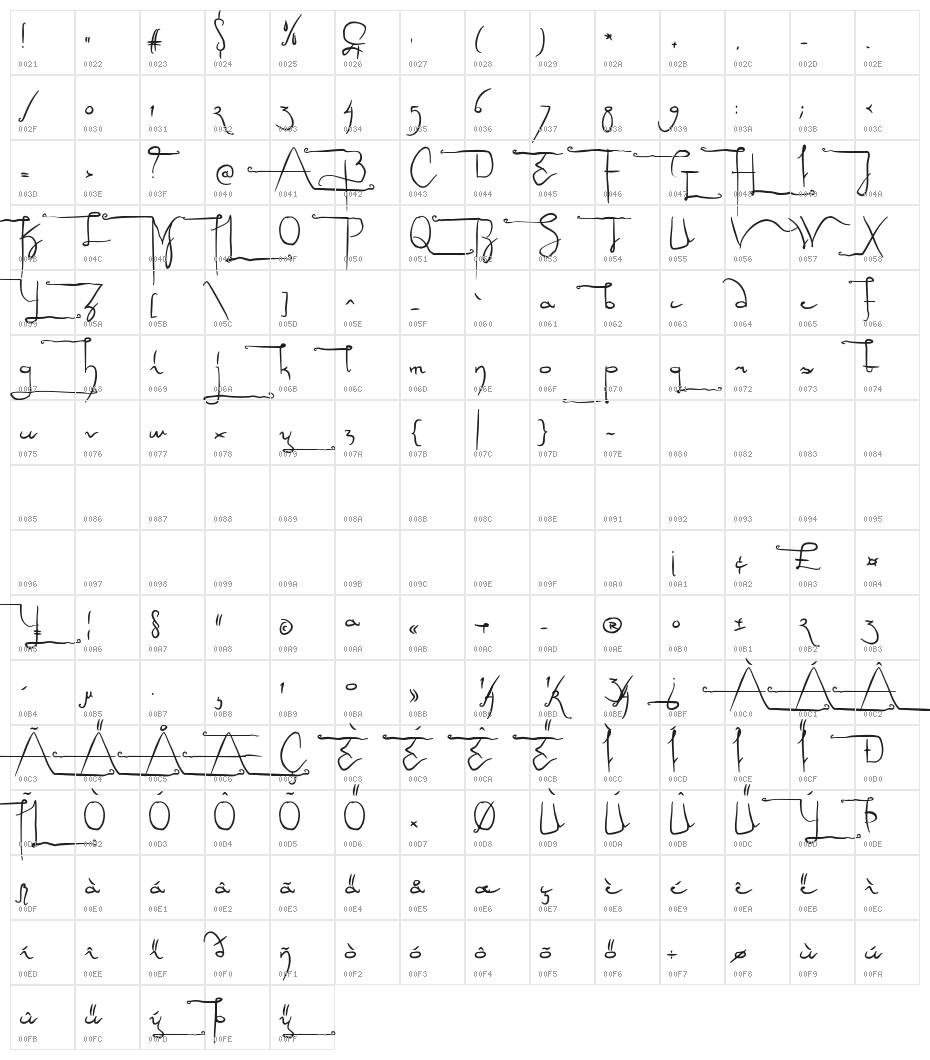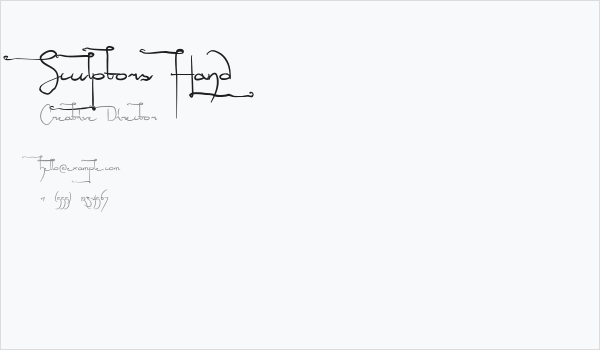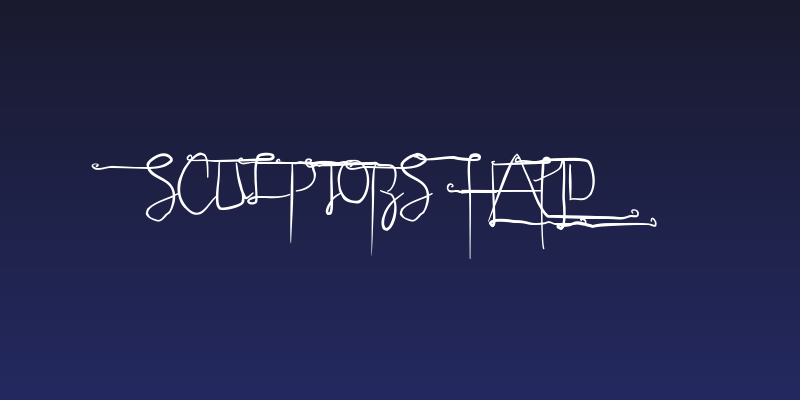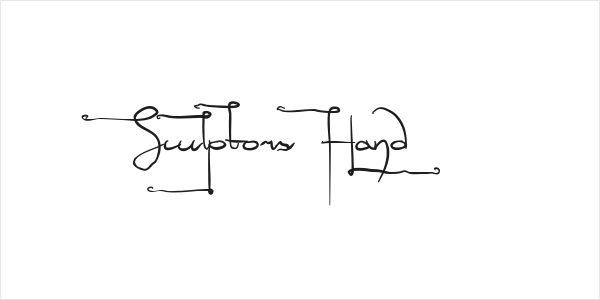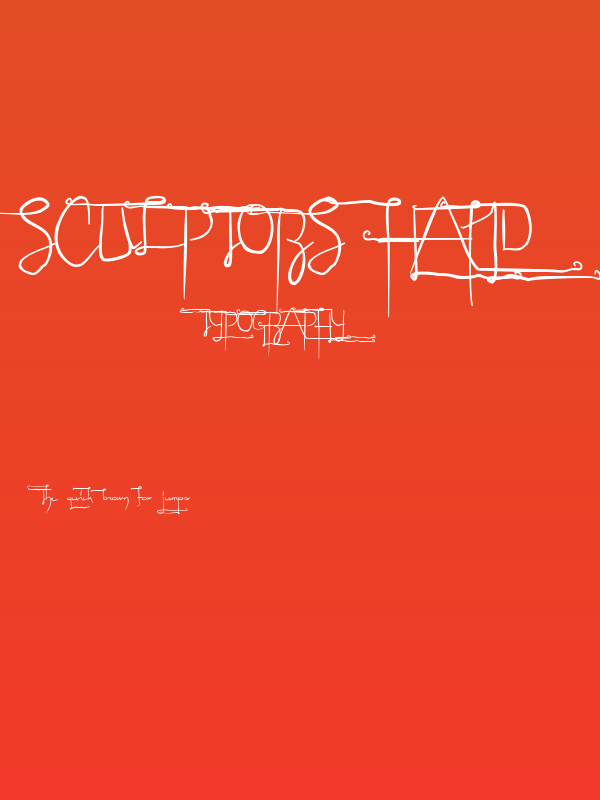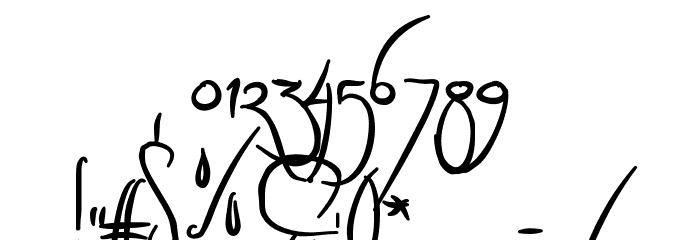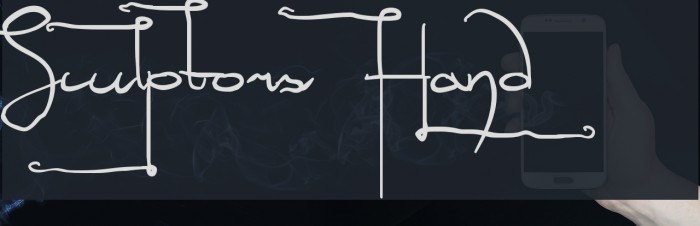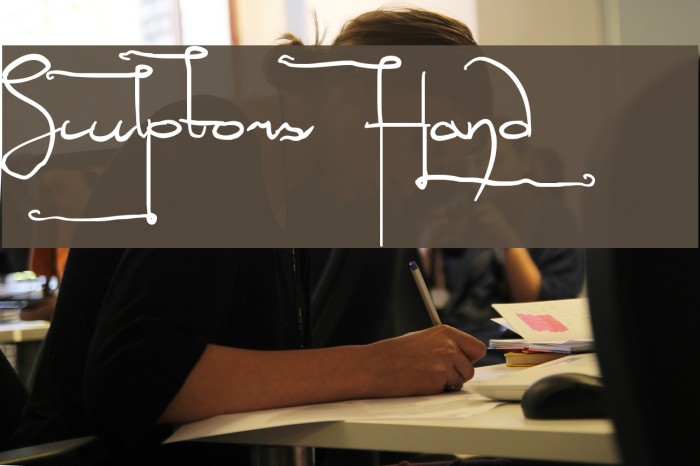
Sculptors Hand Font
Sculptors Hand Description
This font exhibits an artistic and intricate design, characterized by its elaborate and decorative strokes. Each letter is adorned with unique flourishes and swirls, creating a sense of movement and elegance. The uppercase letters are particularly ornate, with extended lines and loops that give them a sculptural quality. The lowercase letters maintain a consistent style, though they are slightly more restrained, offering a balance between readability and artistic expression. Numbers and special characters follow the same decorative theme, ensuring a cohesive look across all elements. This font's distinct style makes it stand out, offering a blend of creativity and sophistication.
| Proposed Projects | Ideal for artistic projects, invitations, branding, and any design work that requires a touch of elegance and creativity. |